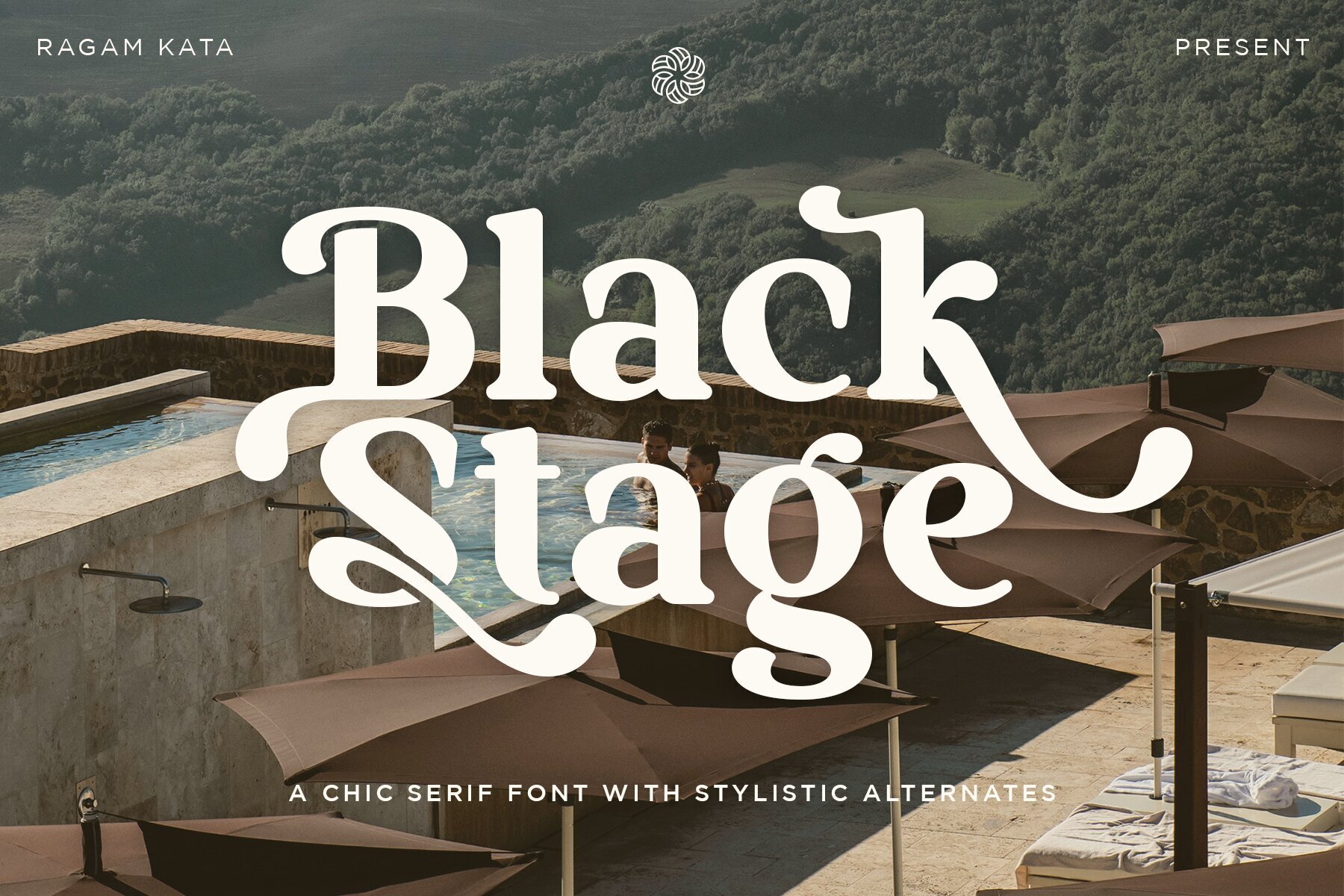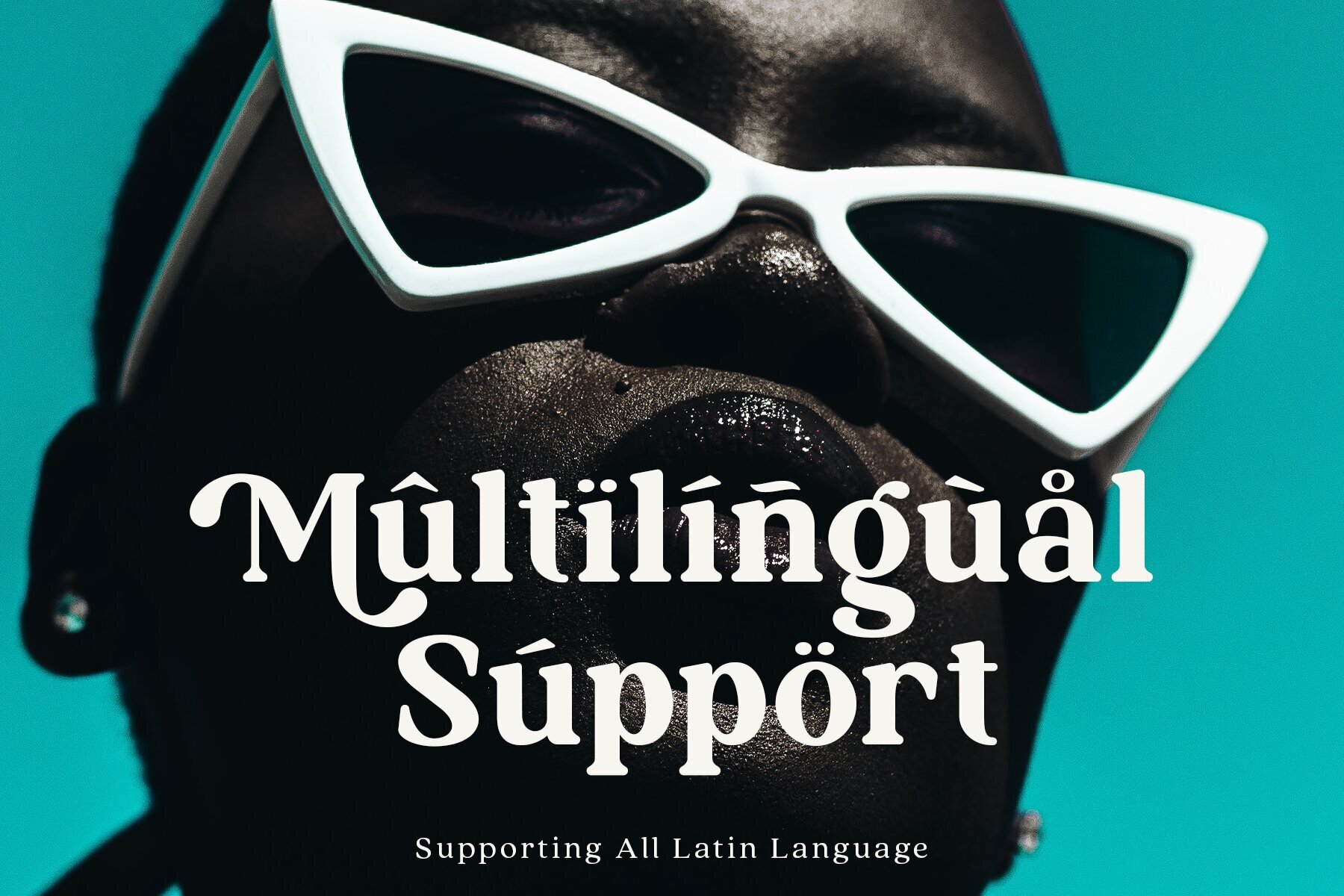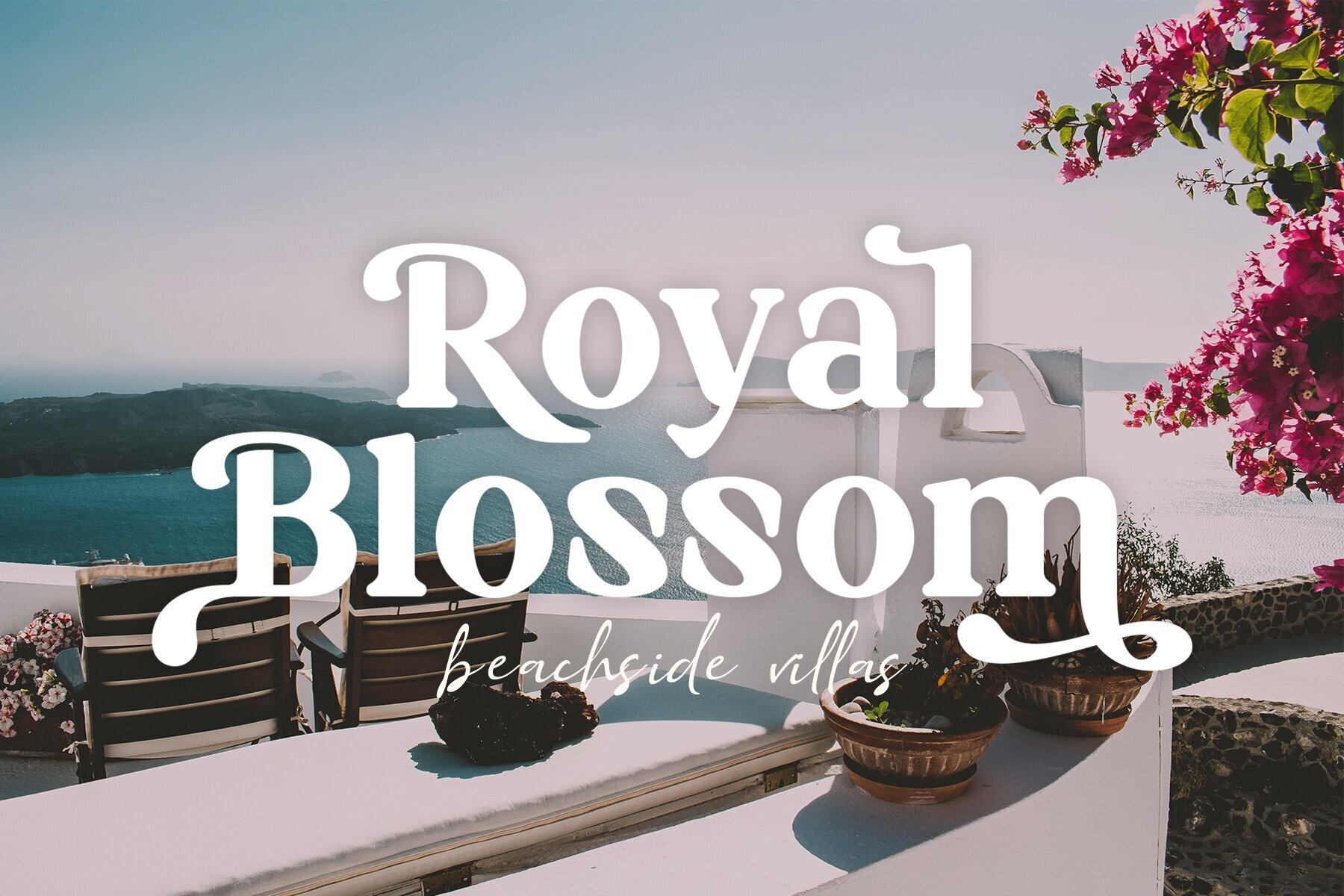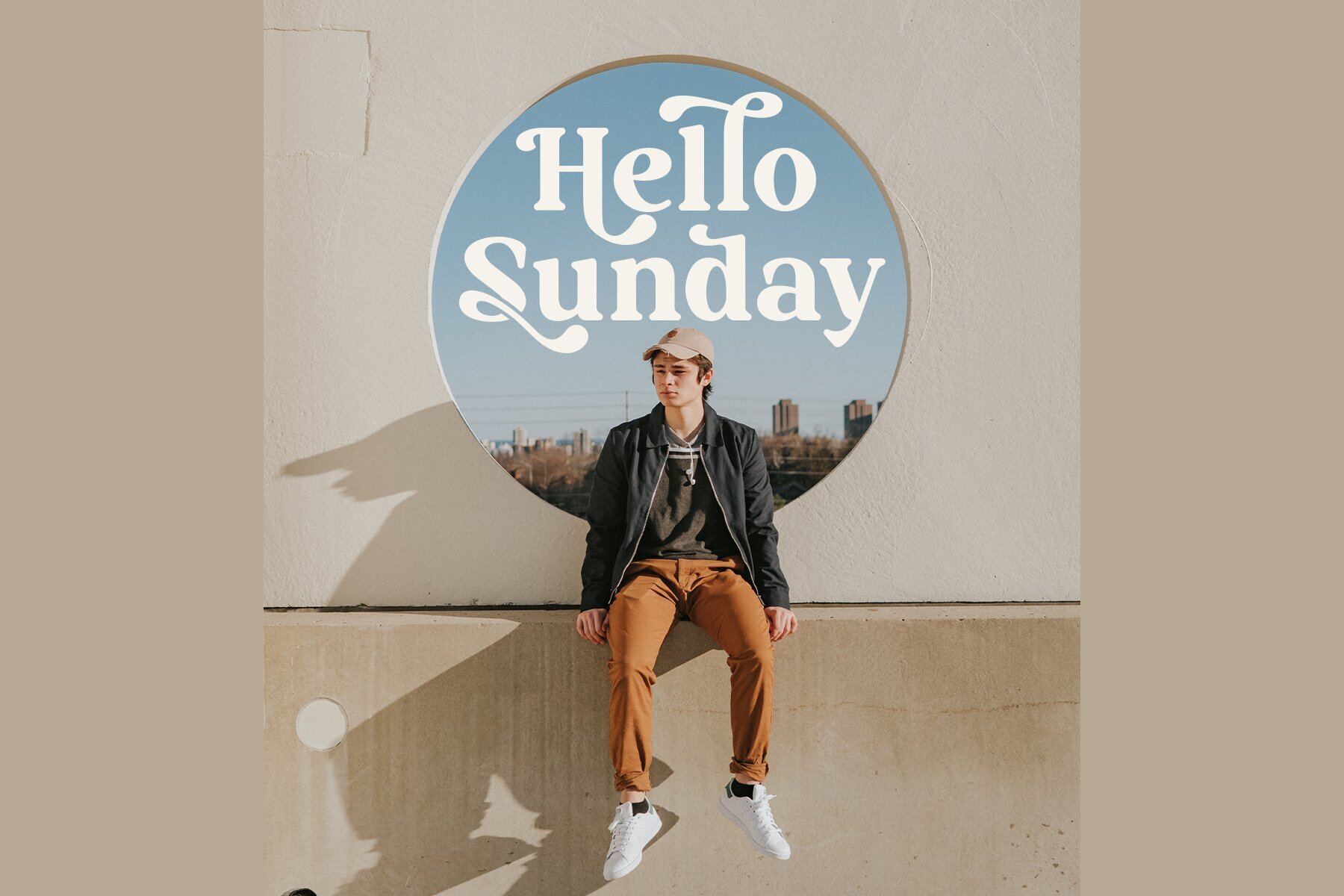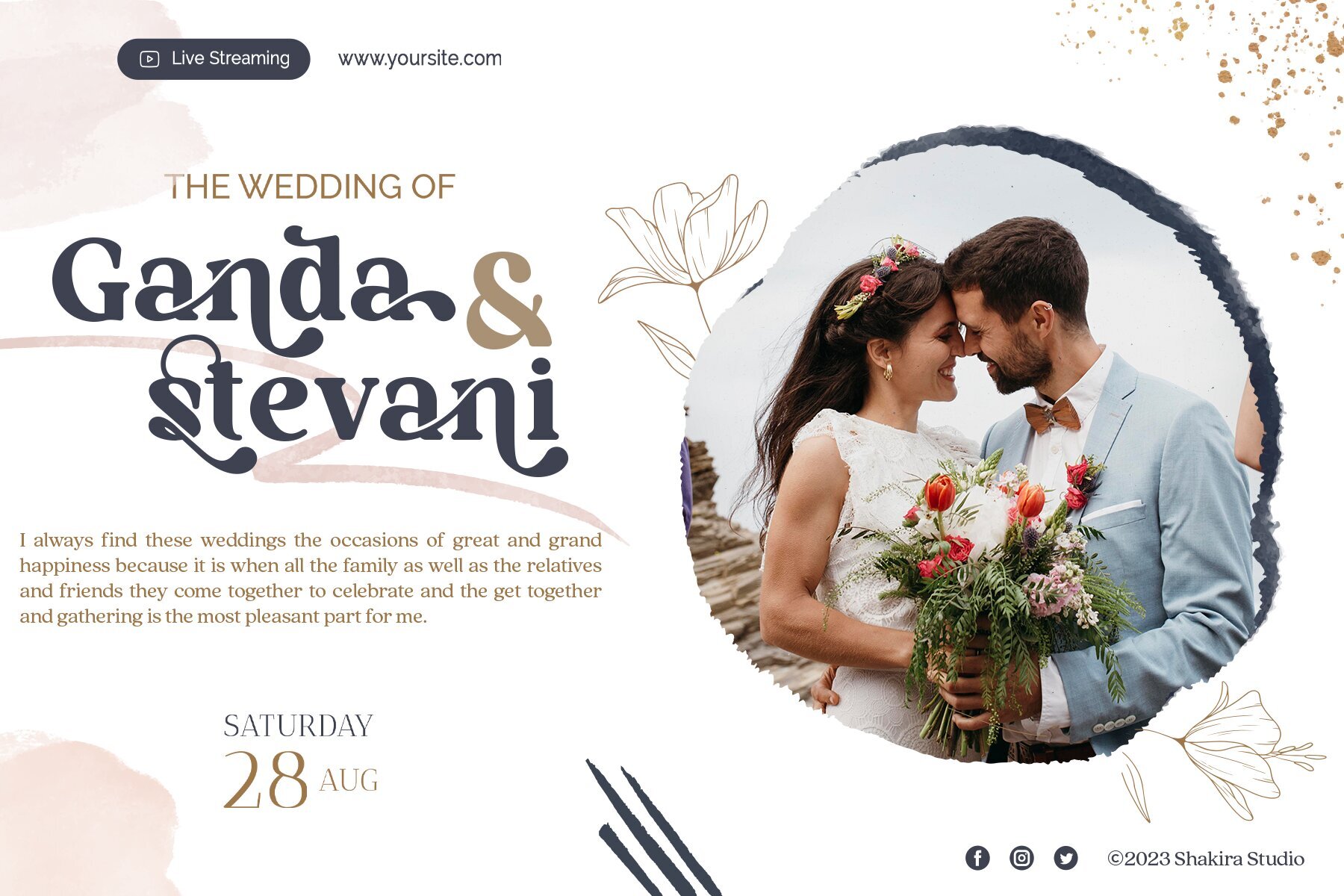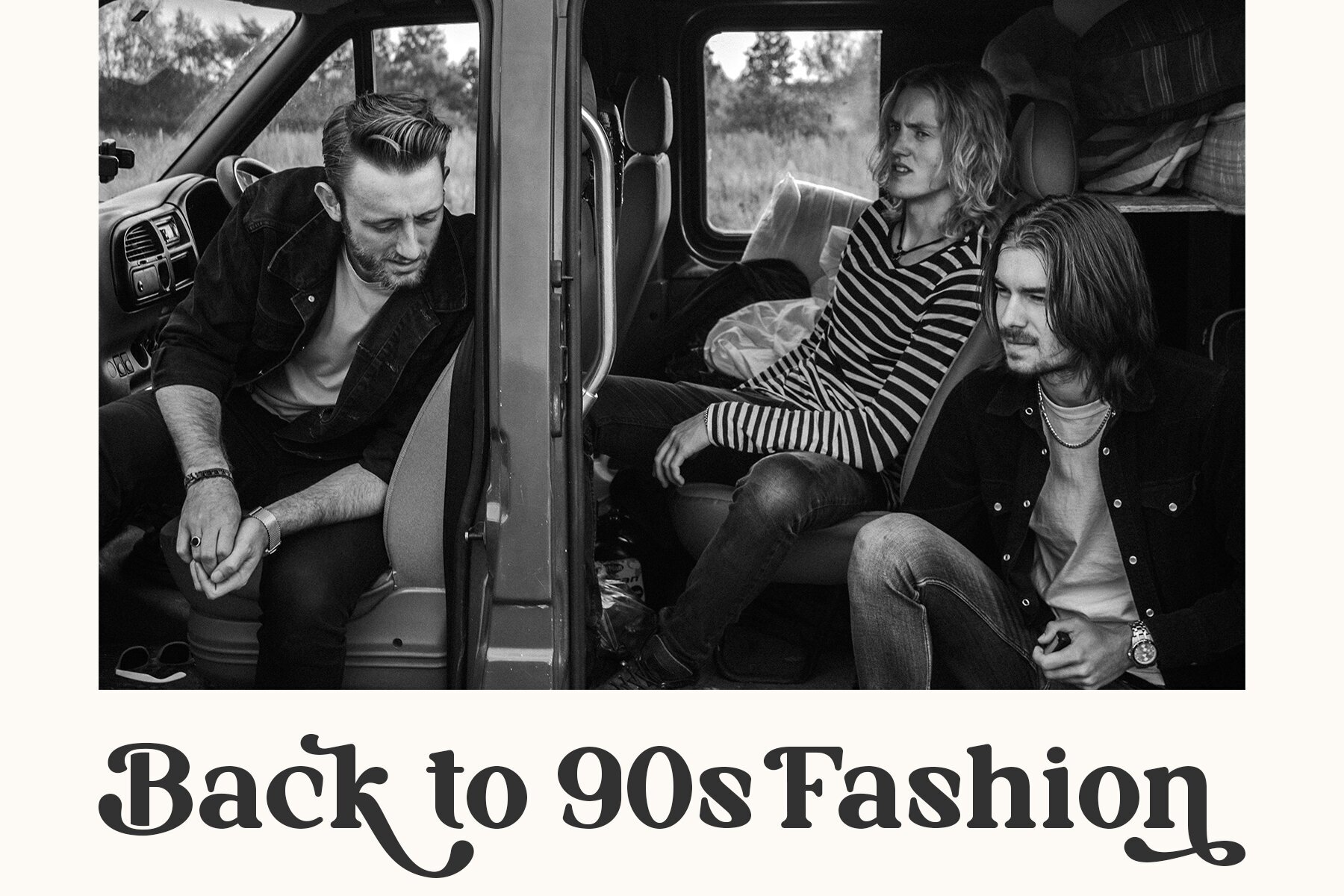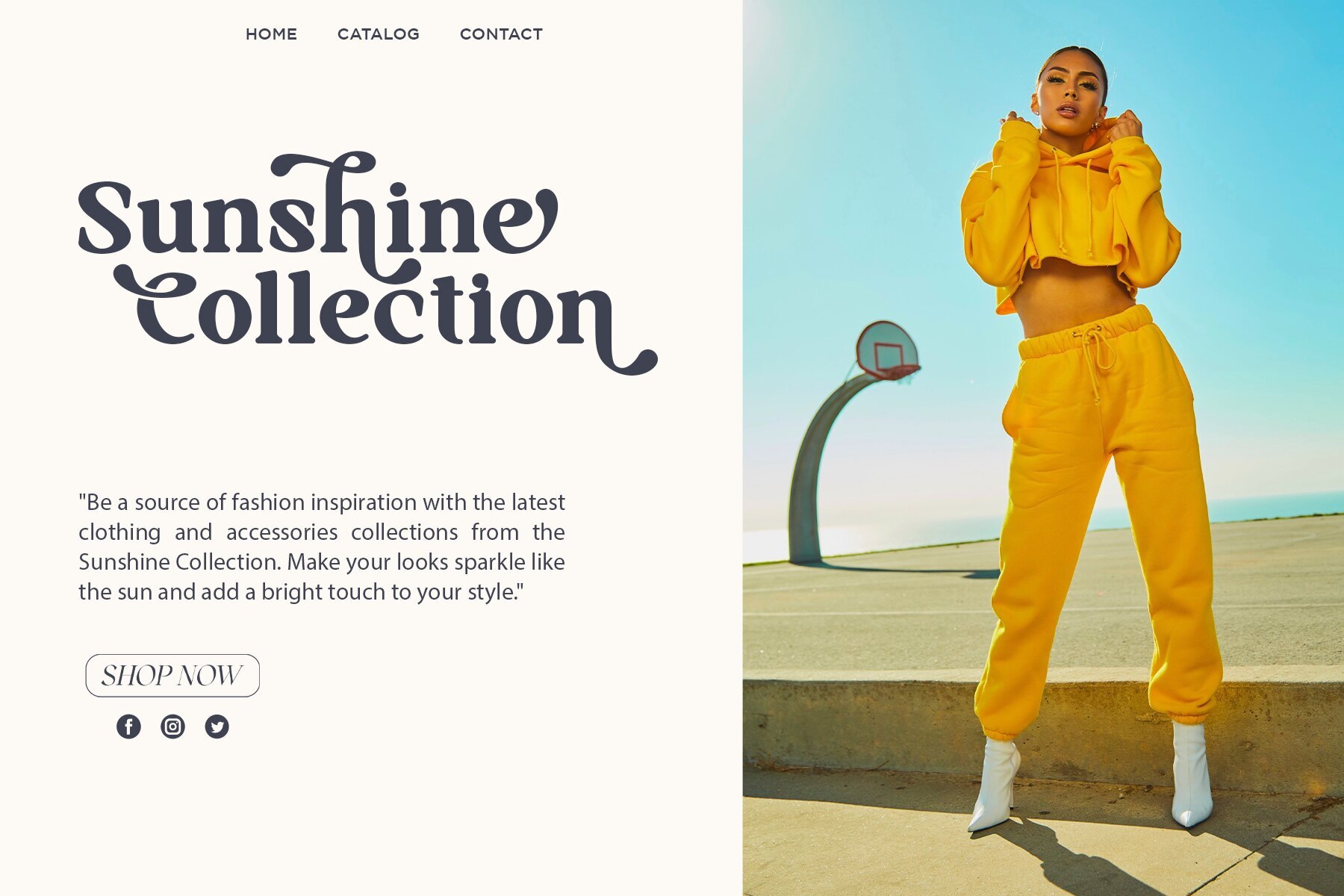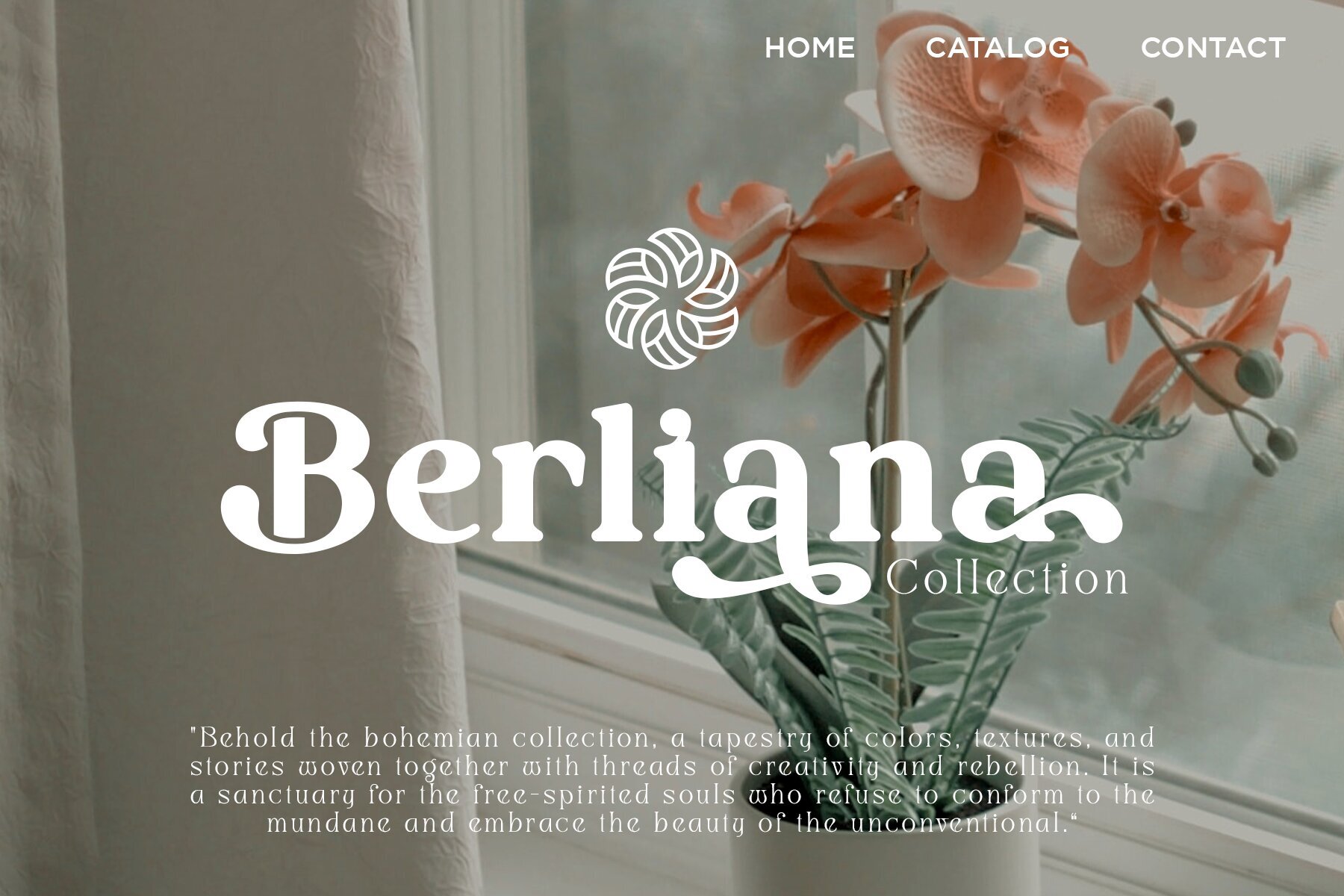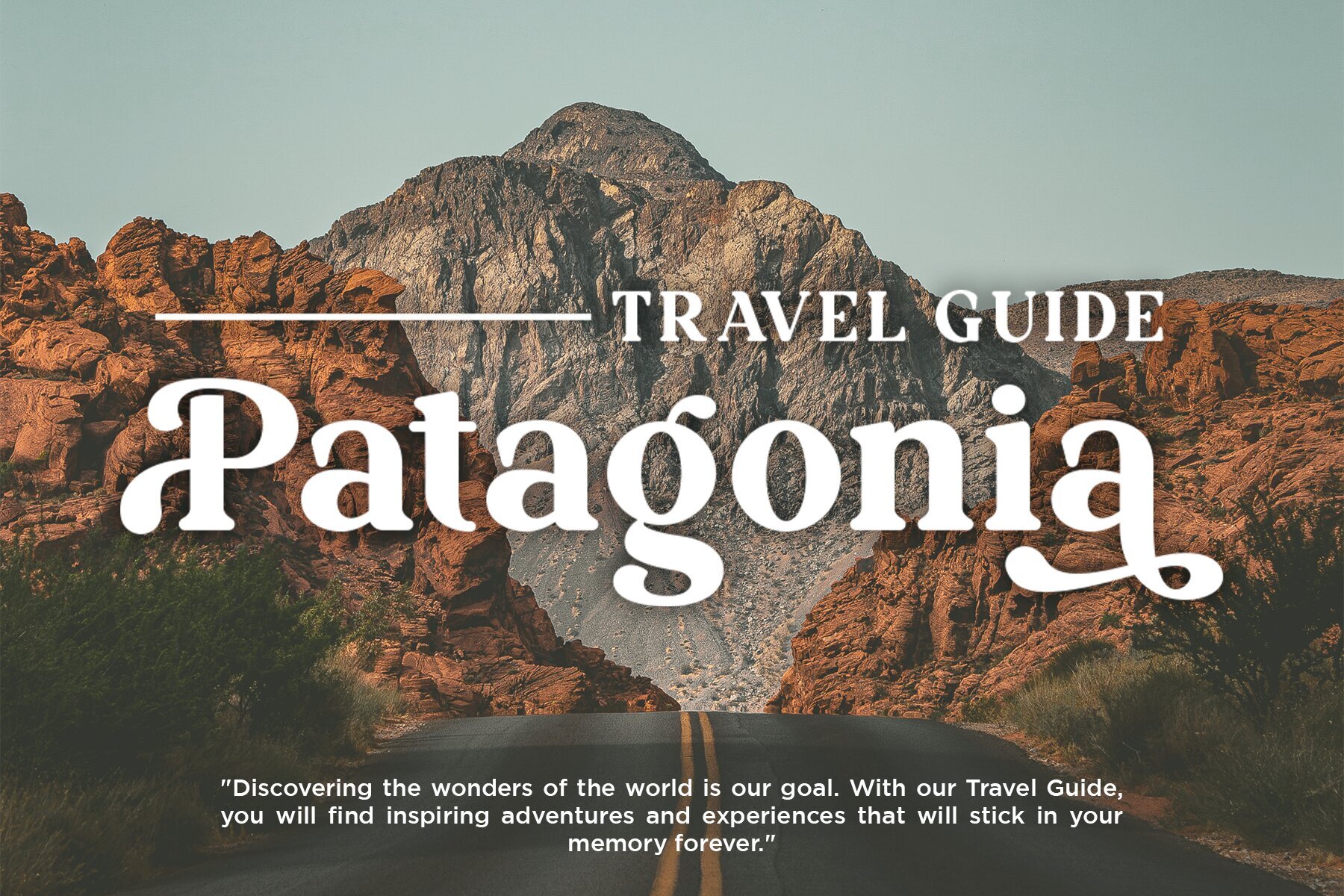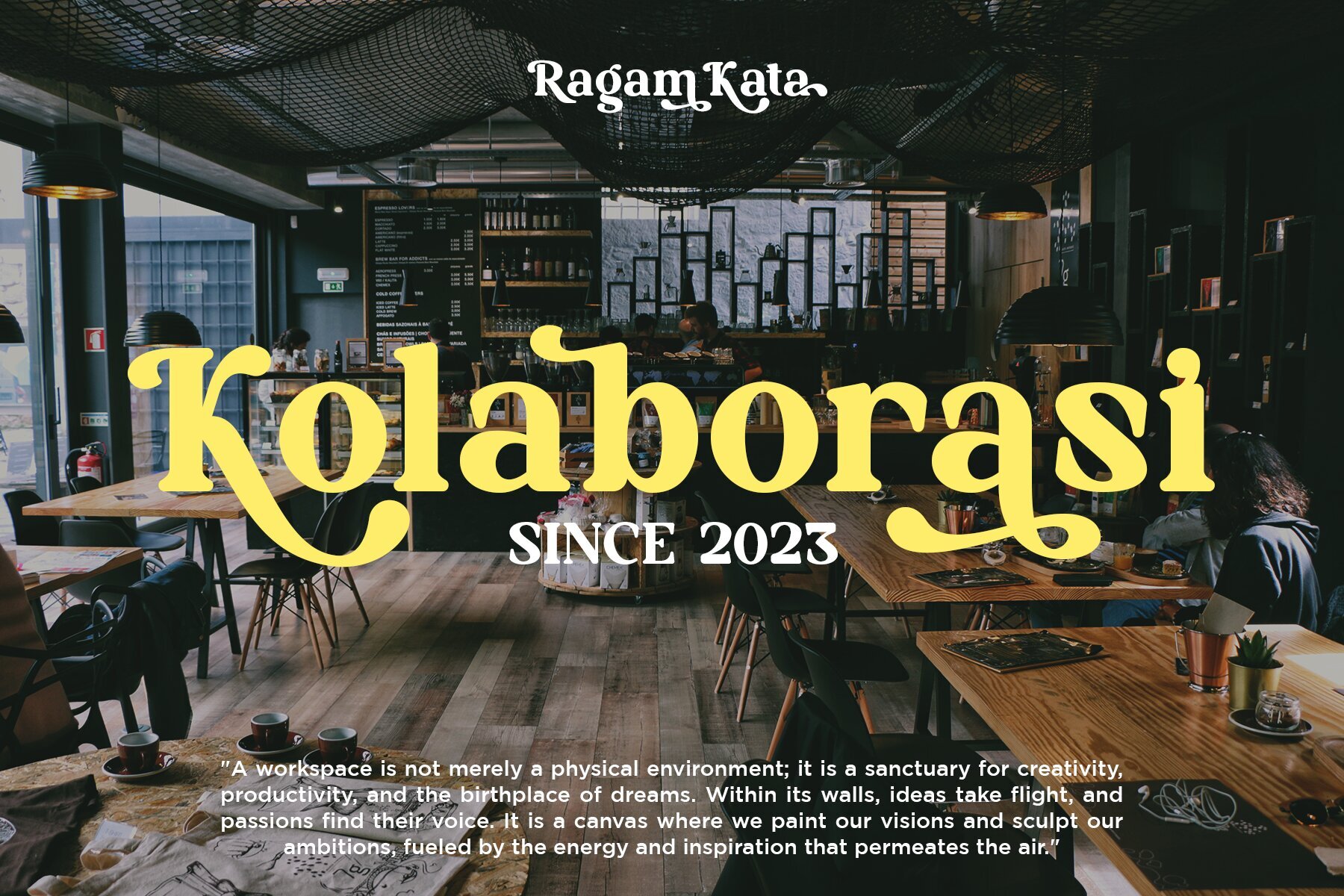
Black Stage Font
Black Stage Regular
Black Stage is a charming and eye-catching retro serif font that perfectly marries elegant serif style with a classic vintage touch. It echoes a feel of a bygone era while maintaining a timeless elegance. The stylistic alternates feature in Black Stage offers flexibility in crafting distinctive text appearances. Easily modify letter styles by selecting the provided style alternatives, allowing you to introduce variety and dynamics to your designs. Designed for multiple purposes, Black Stage is ideal for titles, posters, banners, invitation cards, branding designs, and more. Its vintage feel and elegant style consistently add a unique touch to your creative projects.Black Stage: Captivating Retro Serif with Vintage Elegance
Stylistic Flexibility